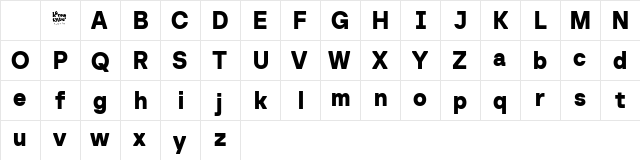
Baru Sans Demo Black is a composed and adaptable typeface that performs quietly and consistently across a wide range of design contexts.
Pro Tip: Use Baru Sans Demo Black in both headline and body roles to test its range before committing to a single application.